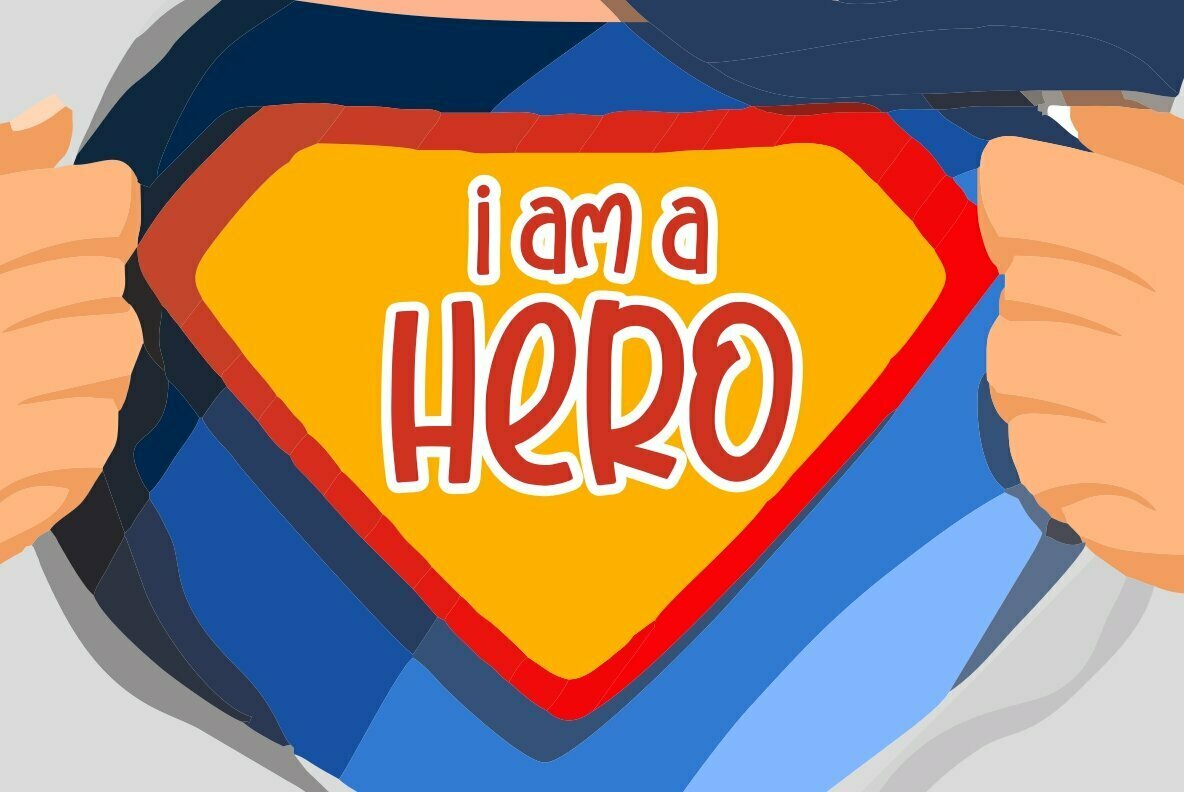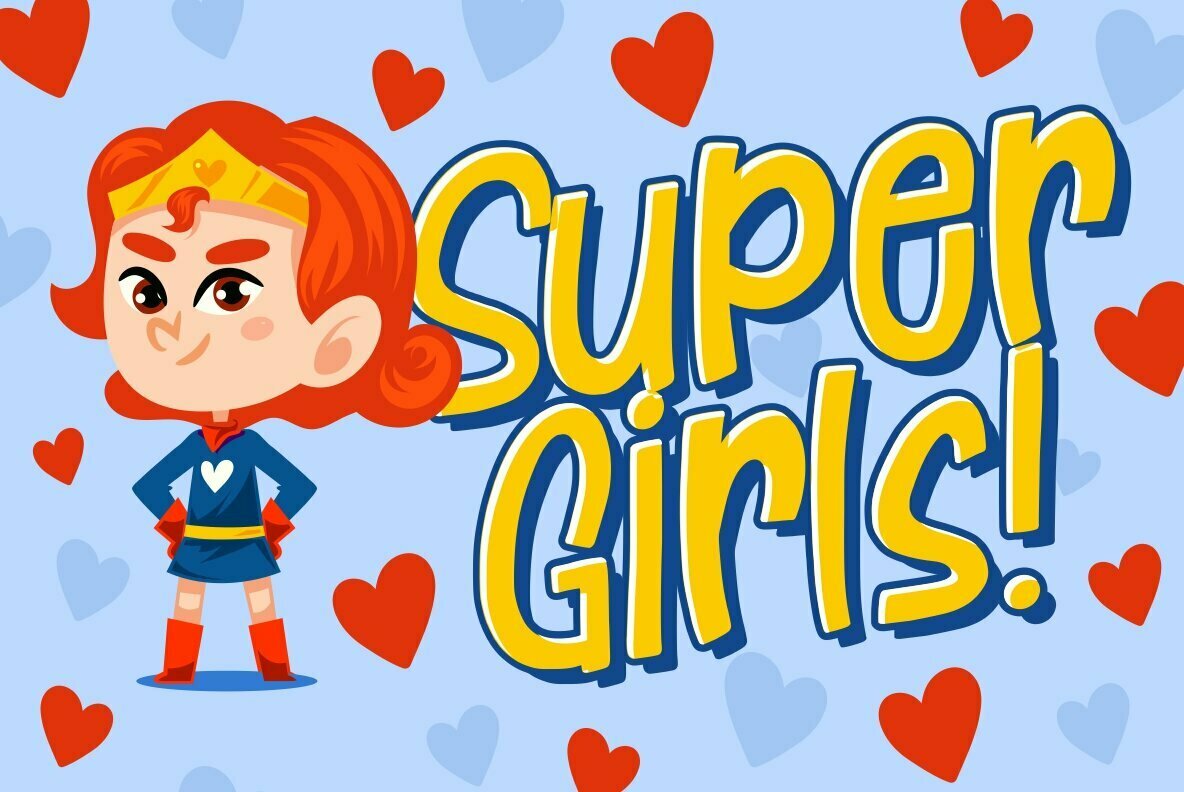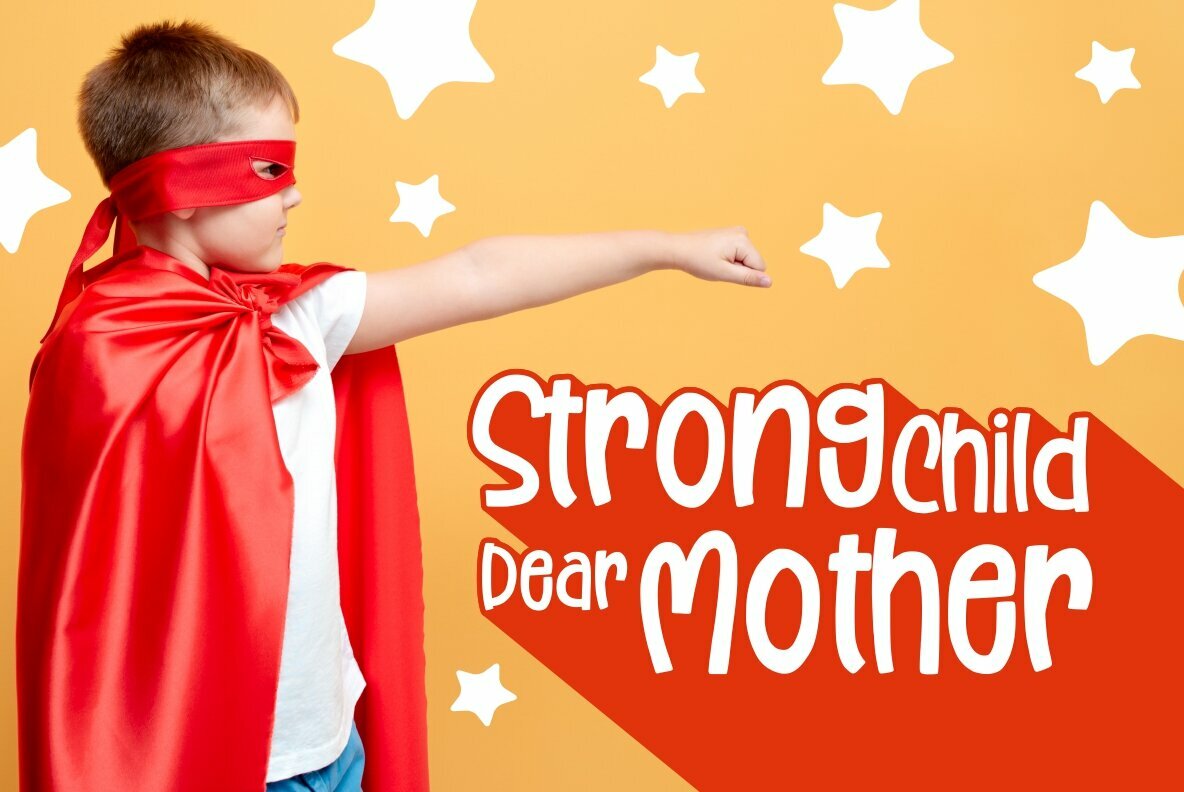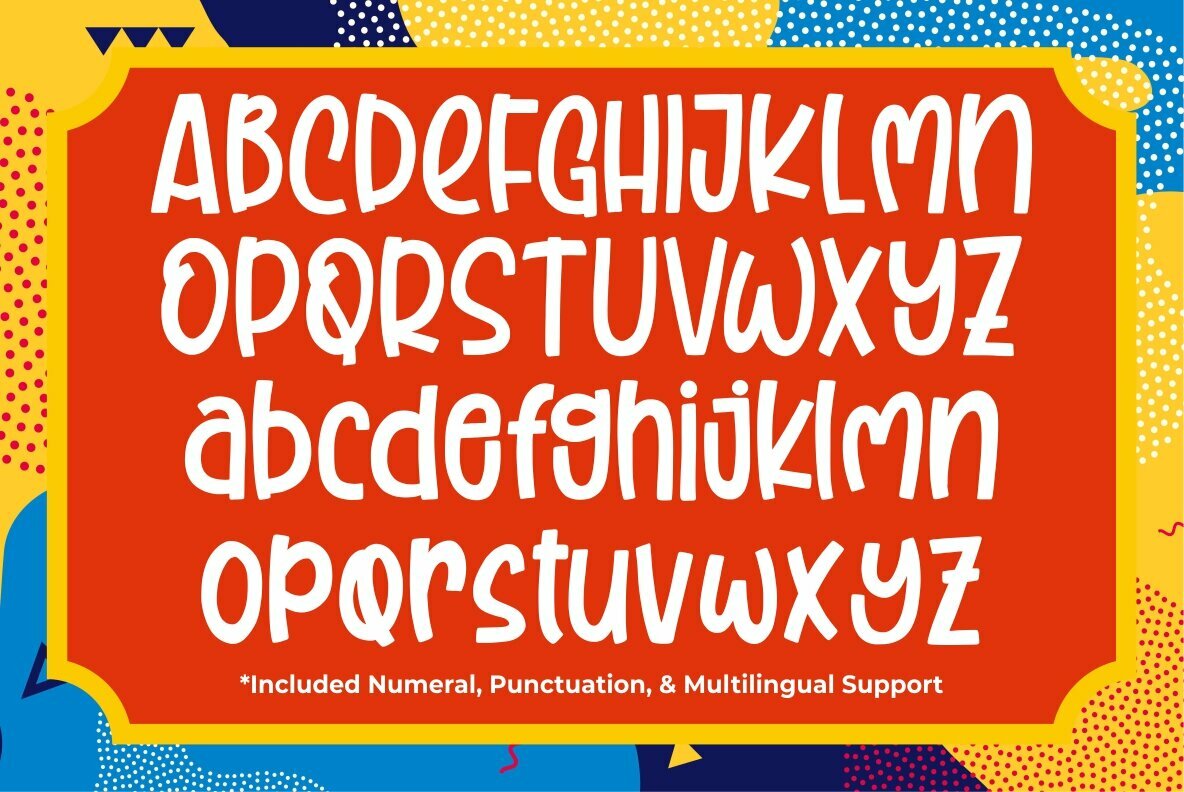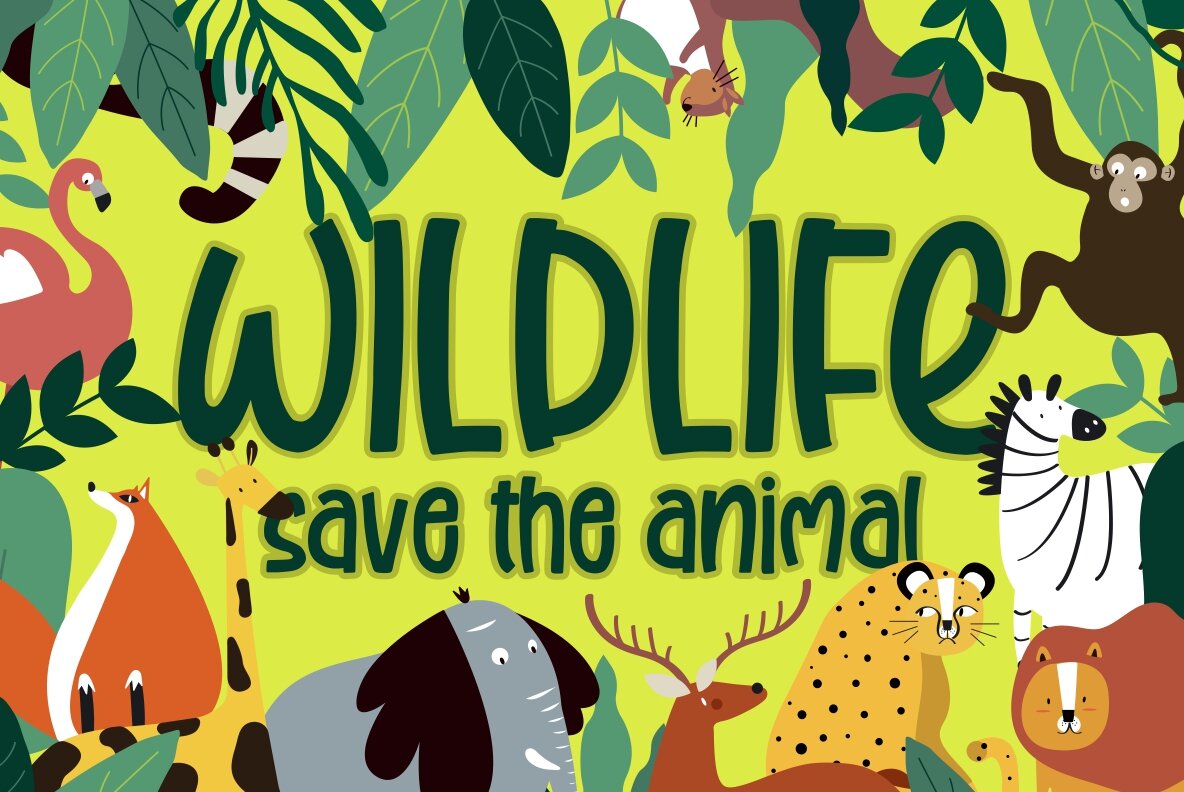
Strong Boyz Font
Strong Boyz
Strong Boyz is a bold display font, bursting with vibrancy and a playful spirit. Drawing inspiration from the dynamic stroke of a marker, its robust style brings a touch of joy to your creative projects. Perfect for display, text, print, branding, or signage — this versatile font ensures that your design stands out in any layout.Strong Boyz: An Energetic Display Font